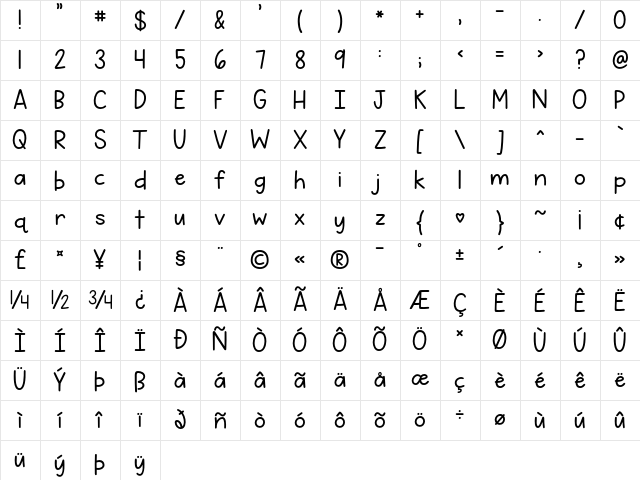
Complete KG Simply the Best Regular glyph index. Displaying only characters natively supported by KG Simply the Best Regular font.
KG Simply the Best is a composed and adaptable typeface that performs quietly and consistently across a wide range of design contexts.